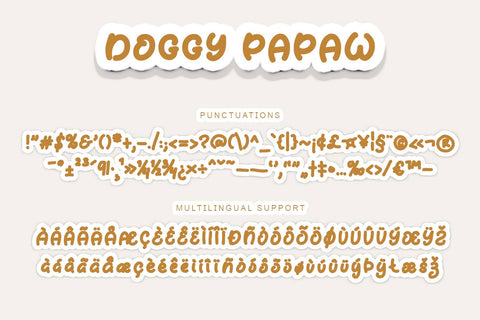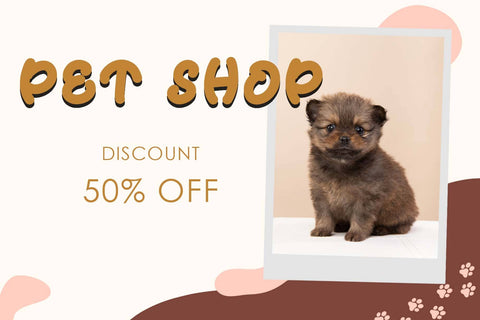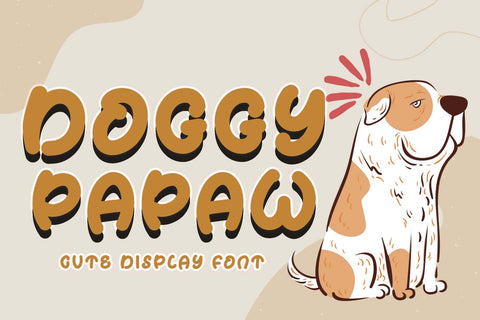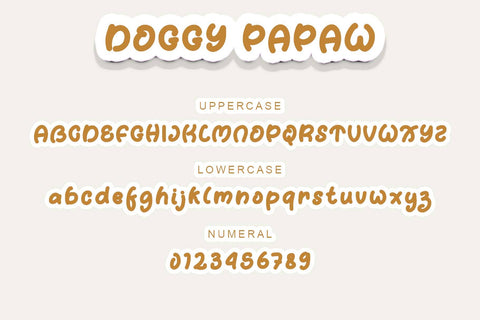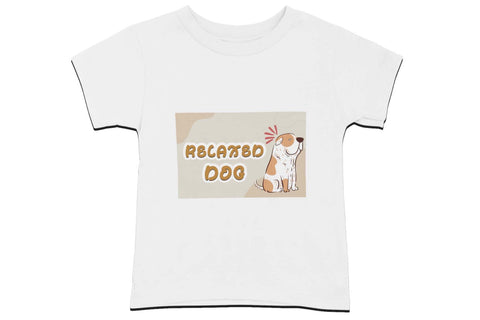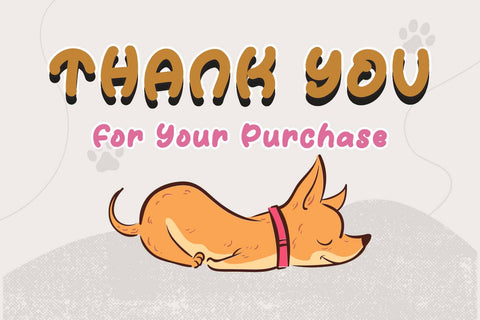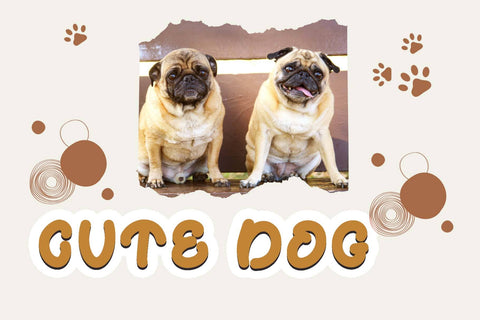
Doggy Papaw
"Doggy Papaw" is a unique cute display font. This font is equipped with uppercase, lowercase, numerals, punctuations and multilingual support. Very suitable for summer, animal fonts, cats, dogs, cute banners, branding, posters, prints, logos, stickers, t-shirts, mugs, tumblers and others.